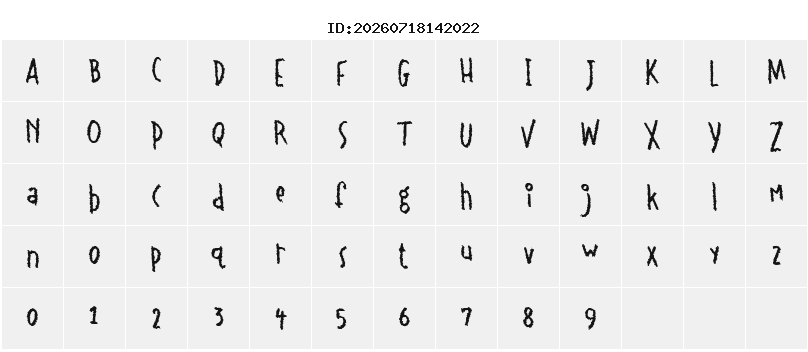
About CK Porridge.ttf
CK Porridge.ttf is a modern, elegant sans-serif font designed for ultimate readability and visual harmony. Perfect for branding, headlines, web design, and print materials.